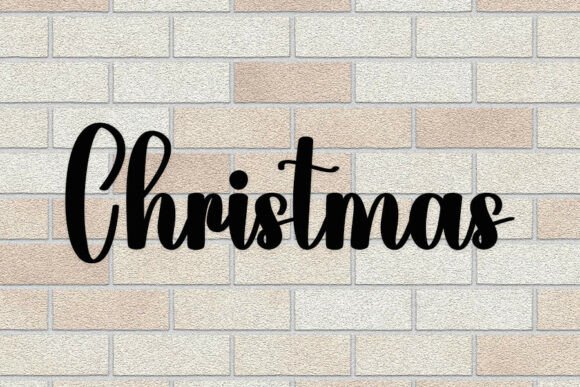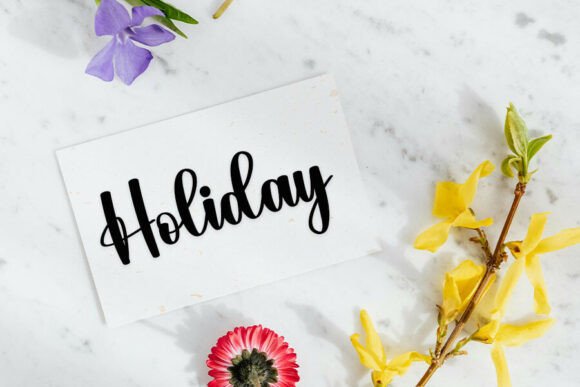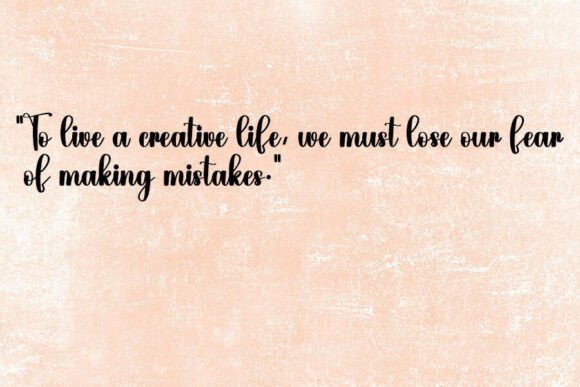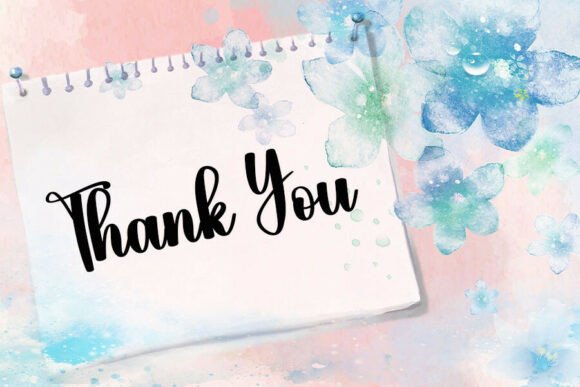
Elevate Your Brand with Alphabet Signature Font: The Epitome of Modern Calligraphy
In the realm of typography, few fonts manage to convey the essence of professionalism and elegance as effectively as the Alphabet Signature font. This modern calligraphy typeface is meticulously designed to bring a touch of class and authority to any brand, making it an indispensable asset for businesses aiming to make a lasting impression. The Alphabet Signature font’s design is reminiscent of the fluid, confident strokes produced by a designer’s fountain pen, characterized by tall, elegant loops and a sophisticated rhythm that sets it apart from more conventional typefaces.
The Distinctive Features of Alphabet Signature Font
The Alphabet Signature font boasts a range of distinctive features that make it uniquely suited for high-end branding. Its tall, flowing loops and refined letterforms are crafted to evoke a sense of luxury and sophistication. Each letter is designed to flow seamlessly into the next, creating a harmonious and elegant rhythm that is both visually appealing and highly readable. This makes the Alphabet Signature font an ideal choice for businesses looking to convey a sense of refinement and expertise.
Ideal Applications for Alphabet Signature Font
The versatility of the Alphabet Signature font means it can be applied in a variety of contexts where a professional, elegant look is desired. Some of the most effective uses include:
- Business Branding: Incorporate the Alphabet Signature font into your logo, letterheads, or marketing materials to give your brand an air of sophistication and professionalism.
- High-End Real Estate Logos: Stand out in the competitive real estate market with a logo that exudes luxury and class, perfect for high-end property listings and branding.
- Luxury Fashion Labels: Elevate your fashion brand with a typeface that embodies elegance and style, ideal for branding, packaging, and marketing materials.
Creative Usage and Decoration
Beyond its standard applications, the Alphabet Signature font can be used creatively to add a personal touch to your brand. Here are some innovative ways to utilize this versatile typeface:
- Corporate Identity: Use the Alphabet Signature font for the CEO’s “Letter from the Founder” or business card signatures to add a personal and elegant touch.
- Real Estate: It’s perfect for high-end property listings and “Sold” signage where a touch of elegance is required.
- Monograms: The ornate capital letters in this font make for stunning, intertwined monograms for luxury brands, adding a bespoke feel to your branding.
Incorporating Alphabet Signature Font into Your Design
Integrating the Alphabet Signature font into your design work is straightforward, thanks to its compatibility with a wide range of design software. Whether you’re working on a logo, a website, or print materials, this font can be easily imported and customized to fit your project’s needs. Its scalability ensures that it remains clear and legible, from business cards to billboards.
Why Choose Alphabet Signature Font?
Choosing the Alphabet Signature font for your branding or design project comes with numerous benefits:
- Timeless Elegance: Unlike trend-based typefaces, the Alphabet Signature font offers a timeless elegance that won’t go out of style.
- Versatility: Its adaptability across various mediums and applications makes it a valuable asset for any designer or brand.
- Authentic Personal Touch: It adds a sense of craftsmanship and personal touch to your brand, essential for standing out in a digital age.
In conclusion, the Alphabet Signature font is more than just a typeface; it’s a statement of elegance, professionalism, and sophistication. Whether you’re a designer looking to expand your typographic arsenal or a brand aiming to elevate your image, this modern calligraphy font is sure to meet and exceed your expectations. With its fluid strokes, elegant loops, and versatile applications, the Alphabet Signature font is poised to become an indispensable part of your creative toolkit.